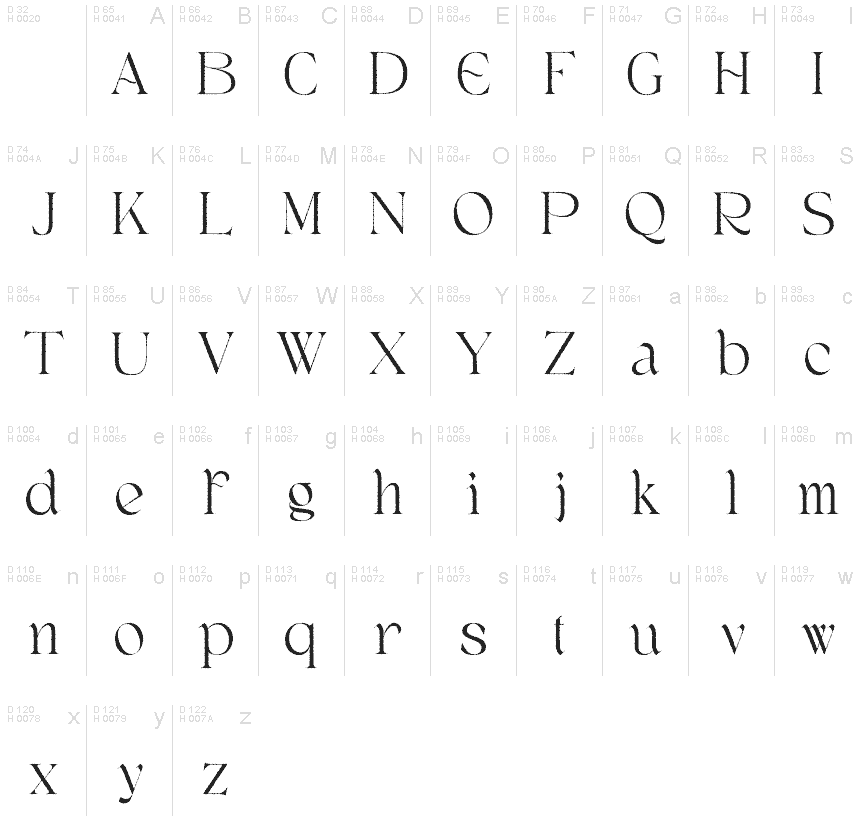
Egmond Rough font by Craft Supply Co is a vintage serif typeface that exudes elegance, sophistication, and a classic touch. With historical influences and artistic flair, this free font has a rugged rough appearance with slight unevenness in its texture, which adds even more interest to its overall look.
Use Egmond Rough’s artistic flair in logos, branding and corporate identities. It can also look good on t-shirt designs, packaging boxes or label stickers of beauty products such as soap bottles. Use it on business cards or on cafes menus and signs for a luxurious classic appearance!